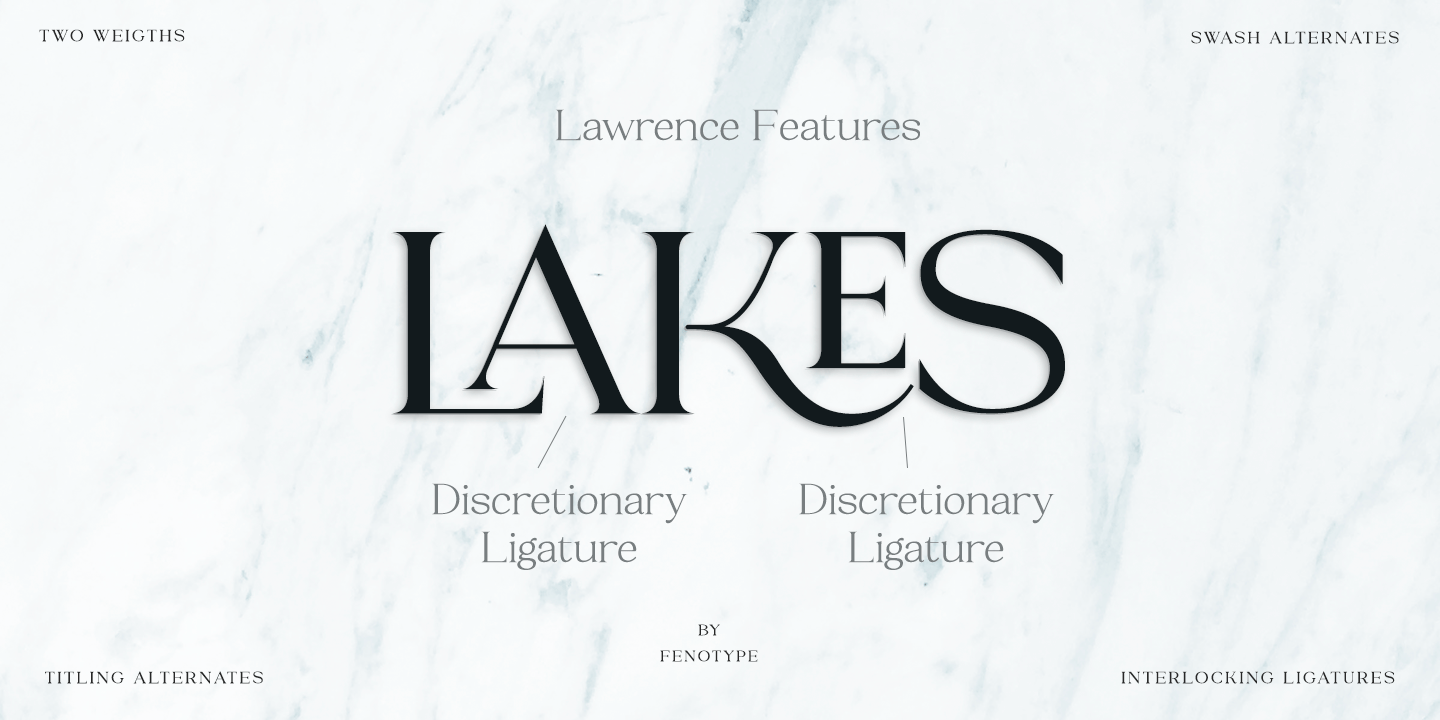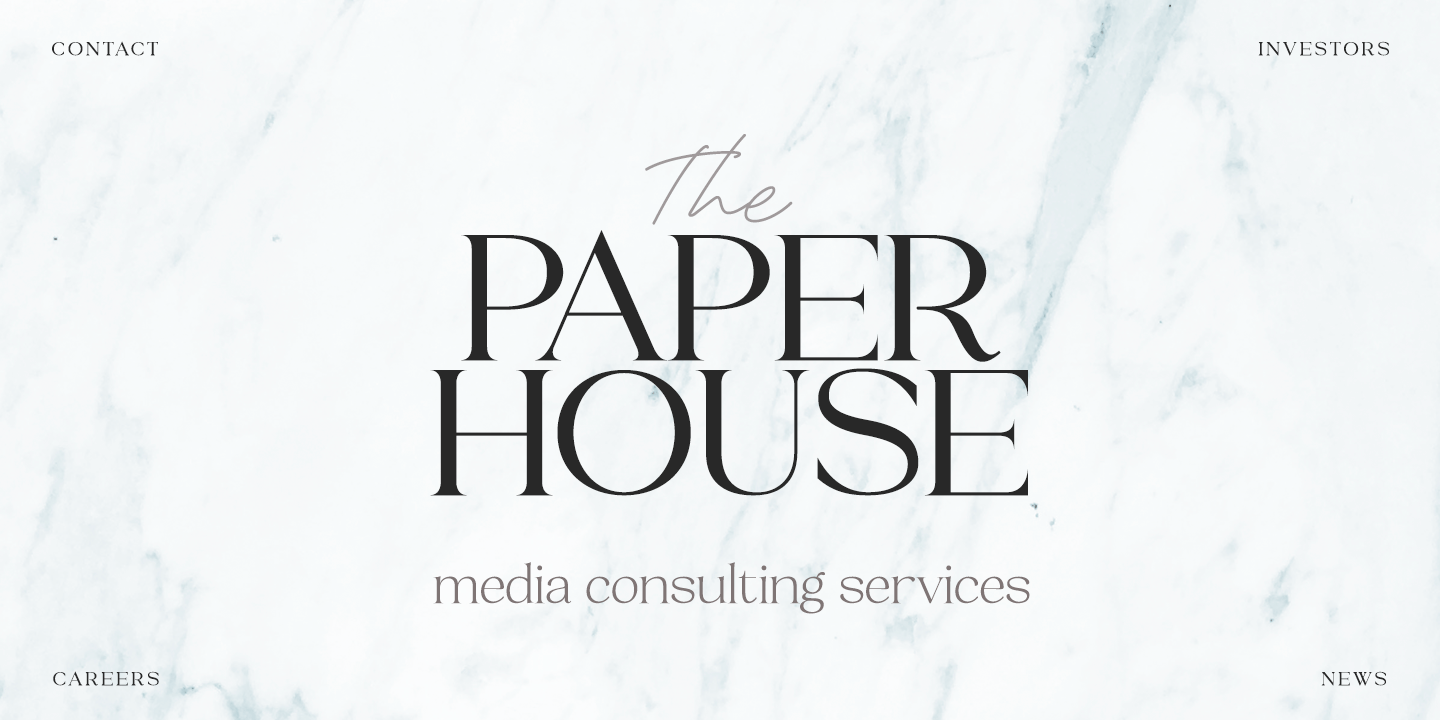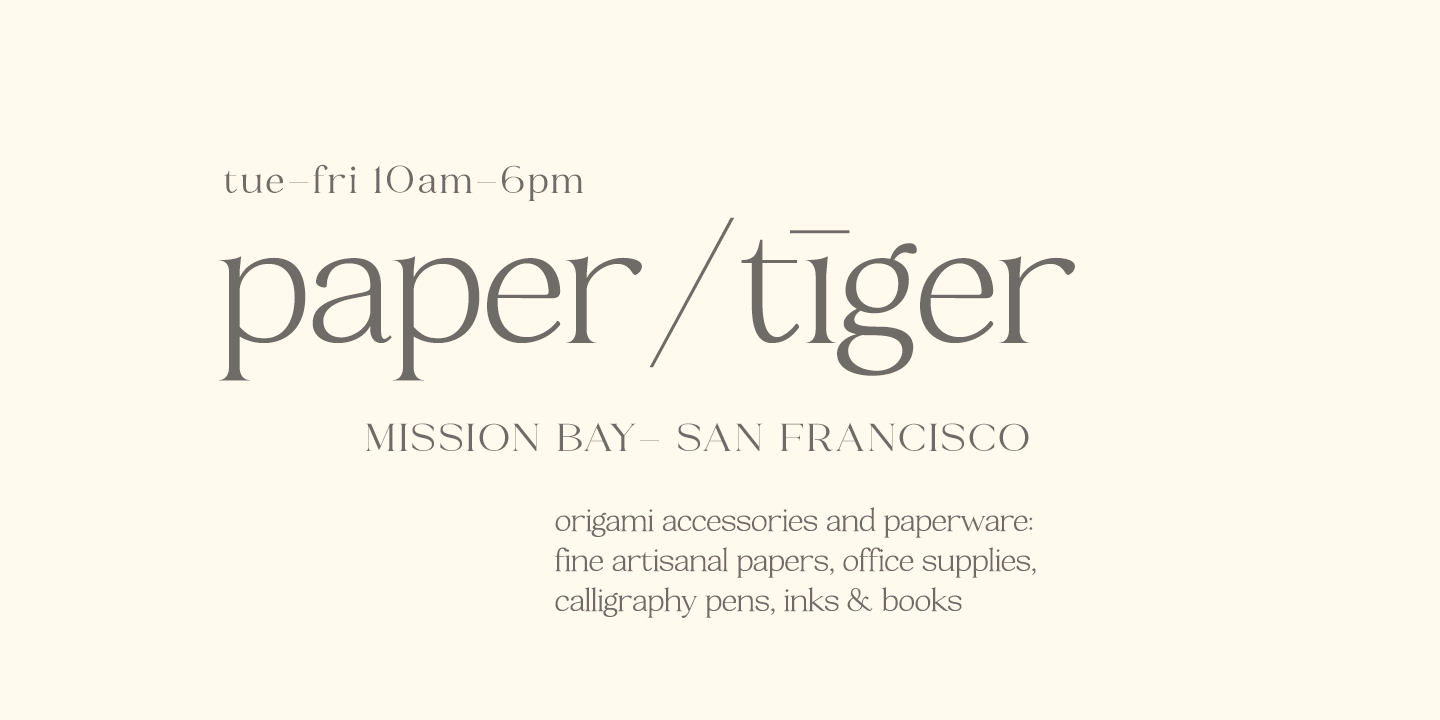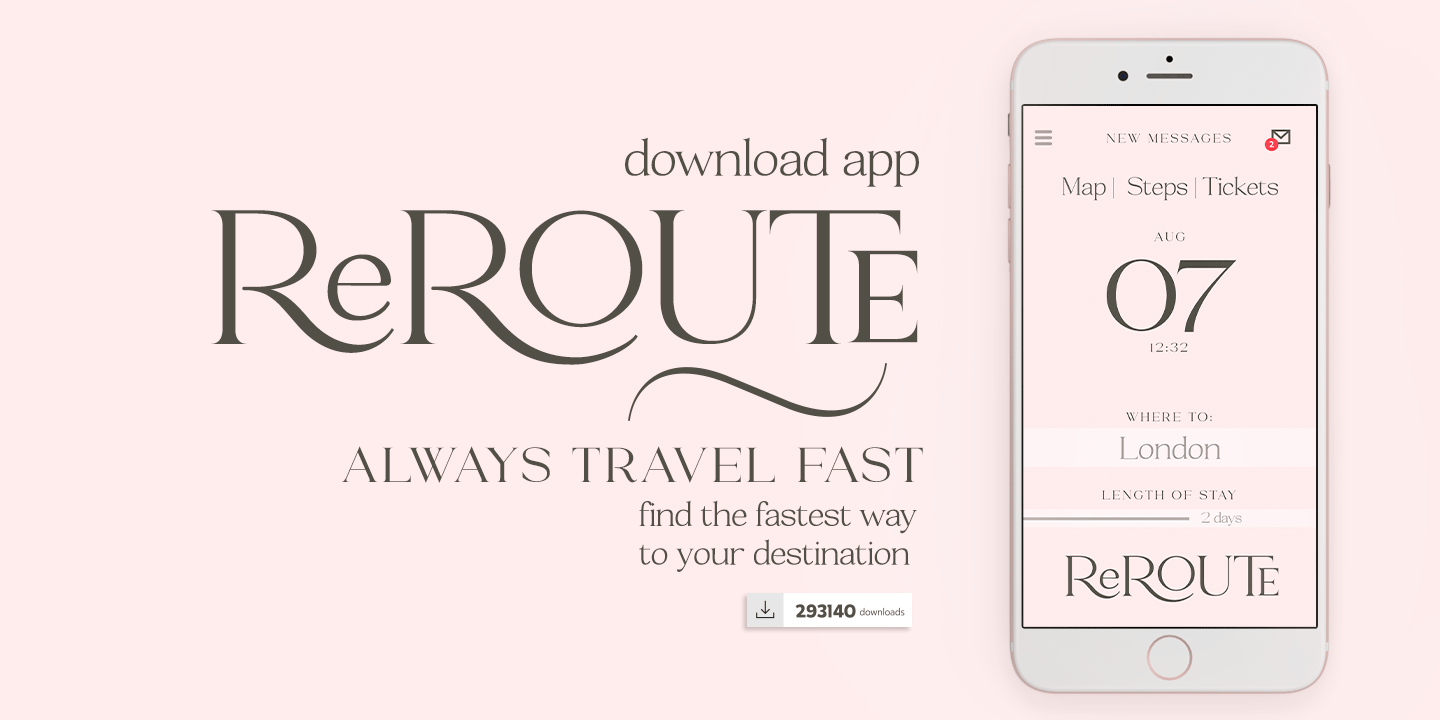
About Lawrence
Lawrence is an elegant OpenType powered Roman Display typeface with two weights. Lawrence is great for fashion, branding, packaging or editorial use. Lawrence is equipped with 192 OpenType alternates including Swash, Stylistic and Titling Alternates.…